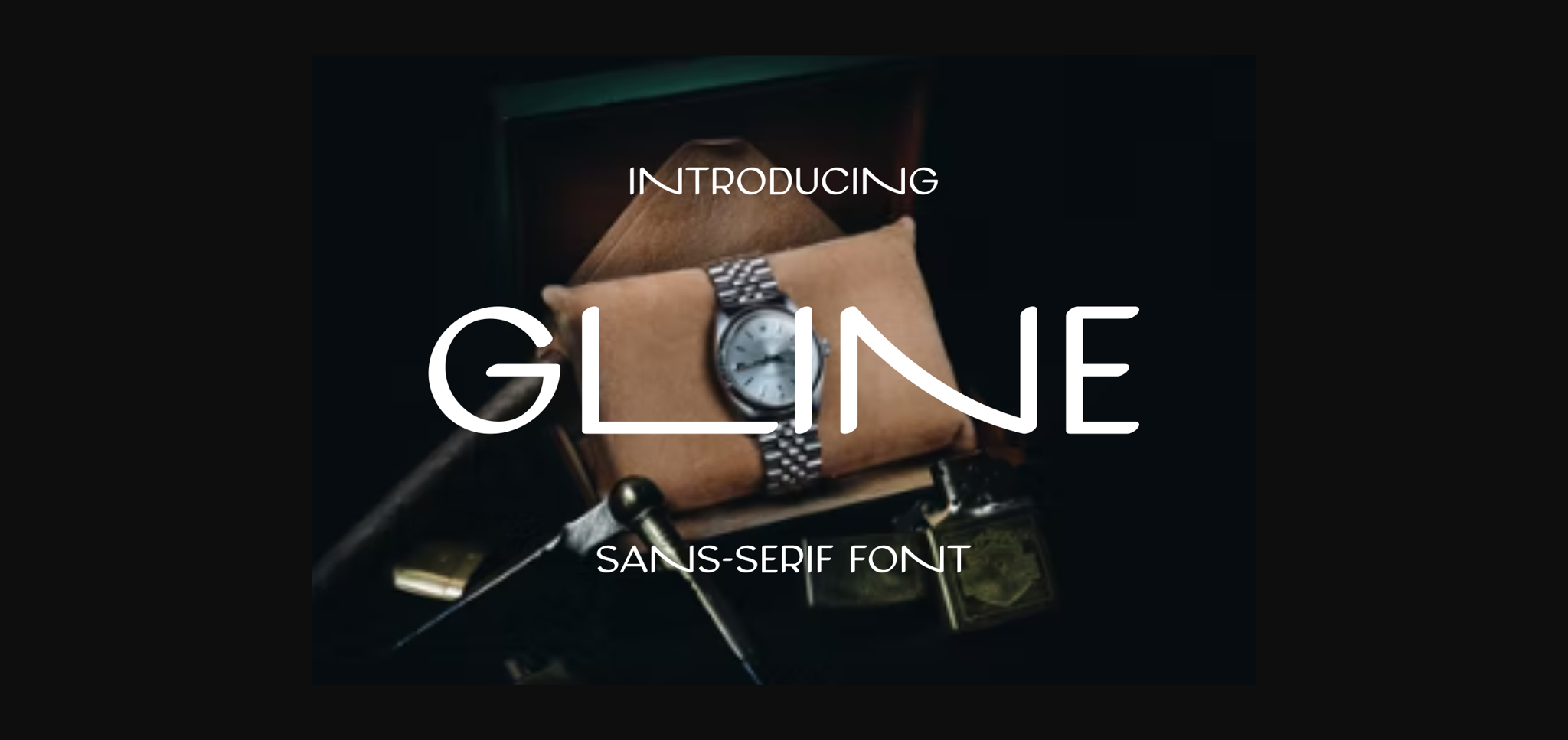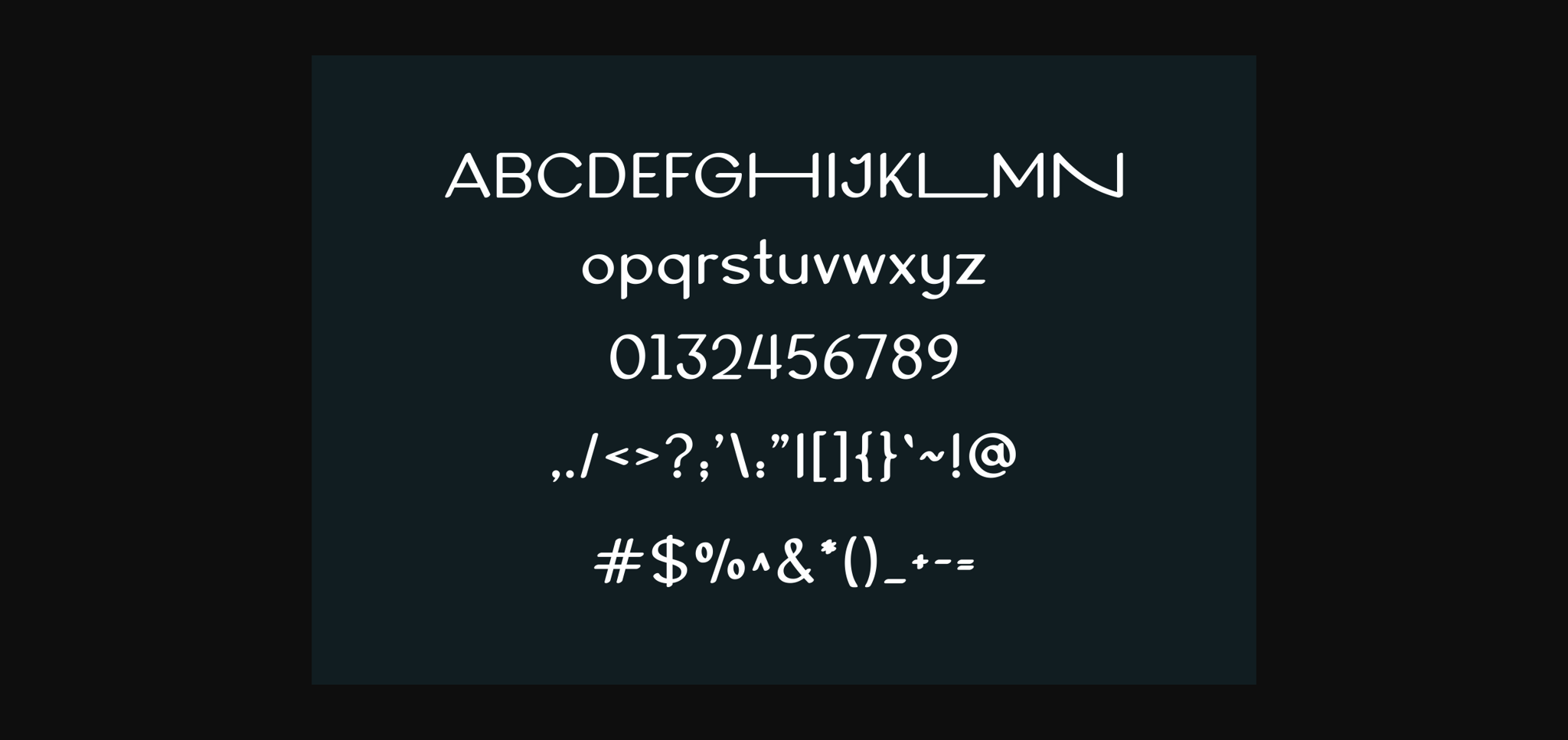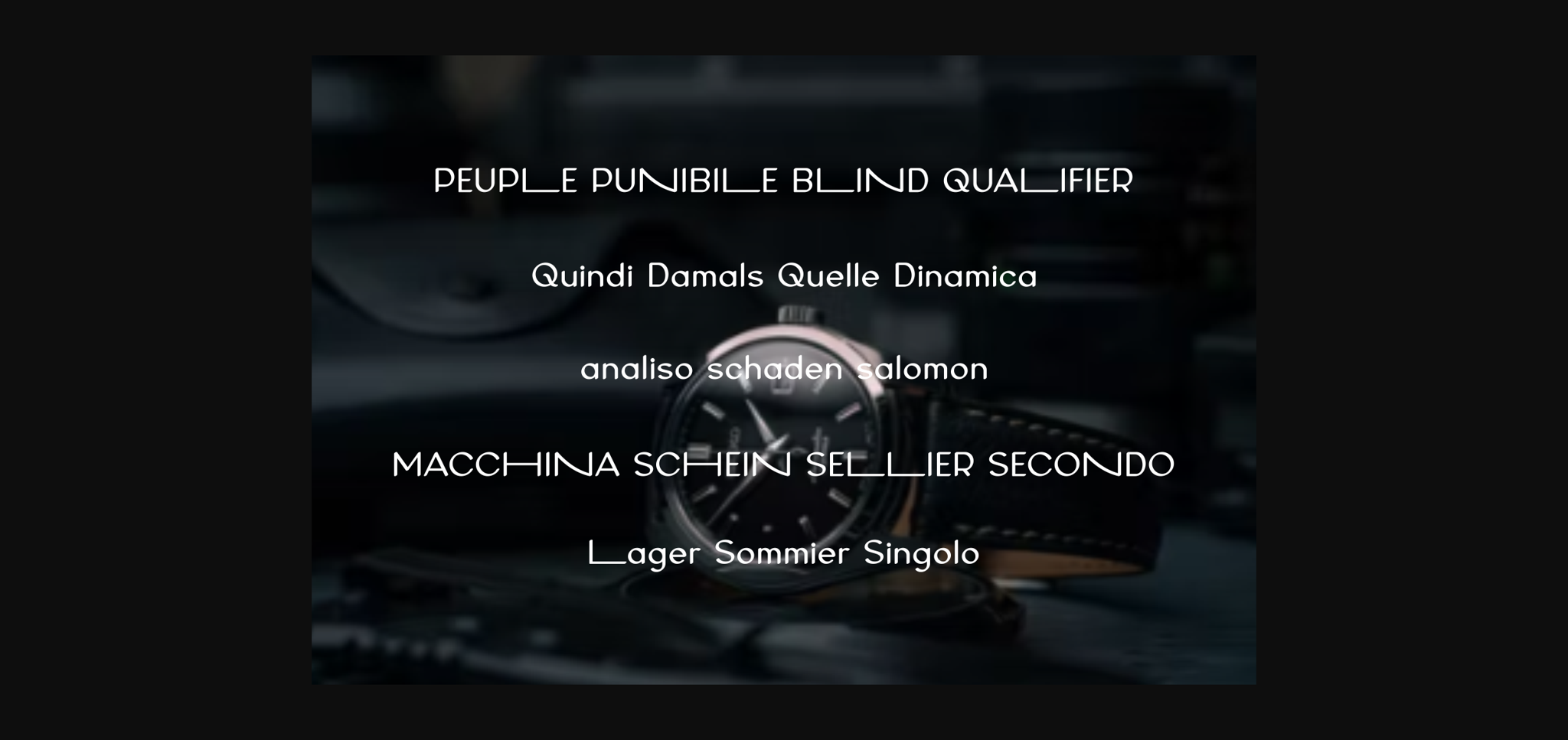
About Gline Font
Gline is a cool and unique sans serif font. No matter the topic, this font will be an incredible asset to your fonts’ library, as it has the potential to elevate any creation.